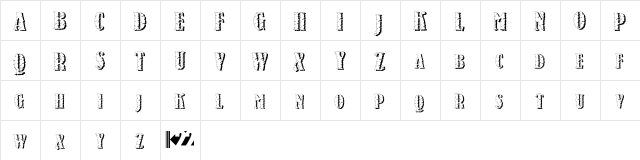
Stone Initials Alt Regular
| Foundry | Toto |
| Designer | Toto |
Design Context for Stone Initials Alt Typeface
Stone Initials Alt is a composed and adaptable typeface that performs quietly and consistently across a wide range of design contexts.